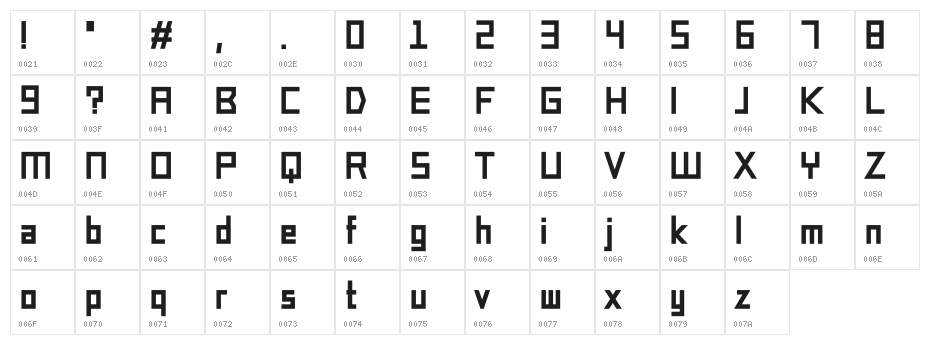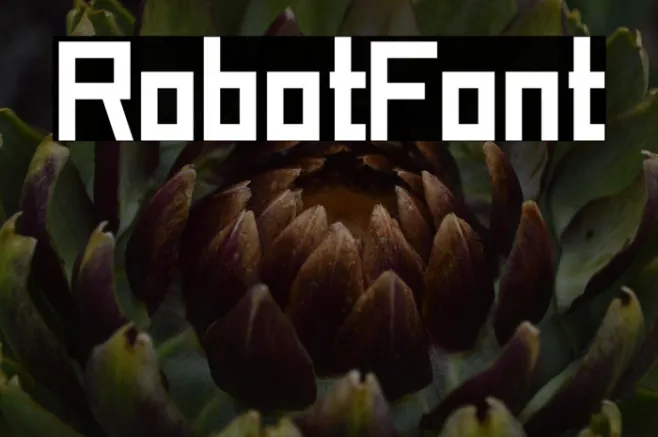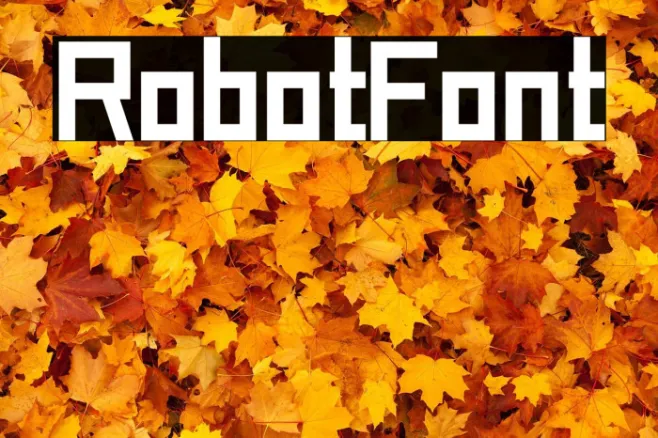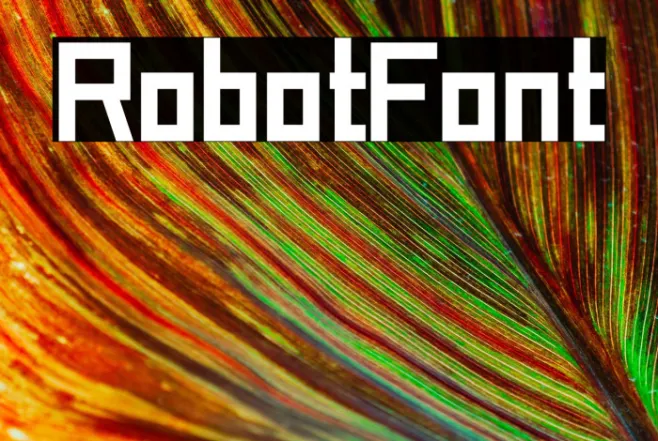
Robot_Font Font
Robot_Font Description
This font features a bold, geometric style with a distinctly futuristic and robotic feel. The characters are constructed with sharp angles and straight lines, giving them a mechanical and structured appearance. The uppercase and lowercase letters maintain a consistent width, contributing to a uniform and cohesive look. The numerals and special characters follow the same design principles, ensuring a seamless integration across all elements. The font's design is highly legible, making it suitable for both digital and print media. Its unique style is ideal for projects that require a modern and technological aesthetic.
| Proposed Projects | Ideal for technology branding, sci-fi posters, video game interfaces, and futuristic-themed designs. |